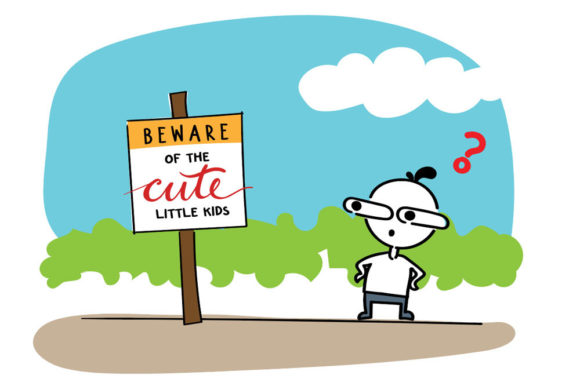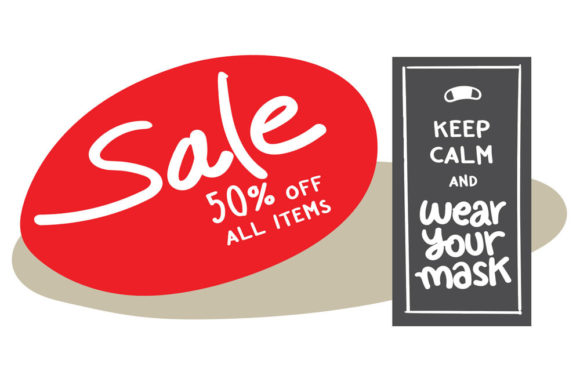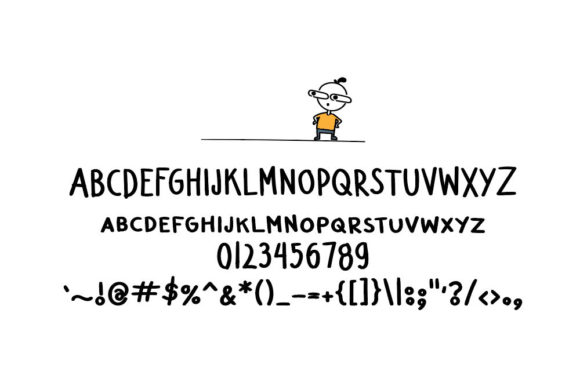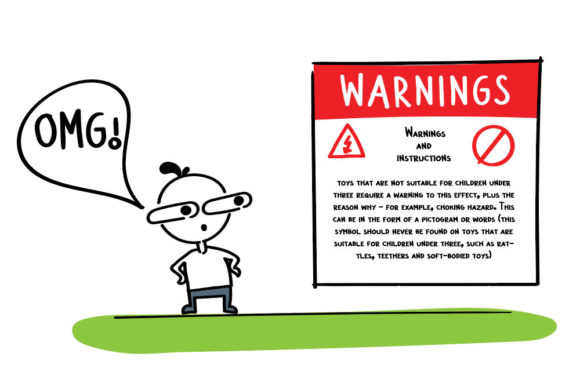
Stare-tic Font
About Stare-tic Font
Stare-tic is a charming and authentic handwritten font that brings a personal touch to your designs. Designed with a natural and organic feel, it is perfect for creating chalkboard quotes, teaching materials, and any design that requires a personalized and realistic look.
The unique characteristic of Stare-tic lies in its handwritten appearance. Each letter has been carefully crafted to resemble natural handwriting, with slight imperfections and variations in stroke width. This gives the font an authentic and genuine feel, as if it were written by hand on a chalkboard.
Stare-tic’s casual and informal style adds a touch of warmth and approachability to your typography. It creates a friendly and relatable atmosphere, making it suitable for educational materials, such as worksheets, lesson plans, and classroom displays. The personal and realistic look of Stare-tic helps to engage and connect with the audience, making the learning experience more enjoyable and memorable.
Additionally, Stare-tic can be used in various design projects beyond teaching materials. It can bring a personal and realistic touch to social media graphics, blog post headers, greeting cards, and other creative projects. The versatility of Stare-tic allows you to infuse a handwritten charm into any design where you want to evoke a sense of authenticity and personal connection.
Whether you’re designing educational materials or creating eye-catching visuals, Stare-tic is a versatile font that will add a personal and realistic feel to your designs. Embrace its authentic handwritten look to create engaging and relatable content that resonates with your audience.